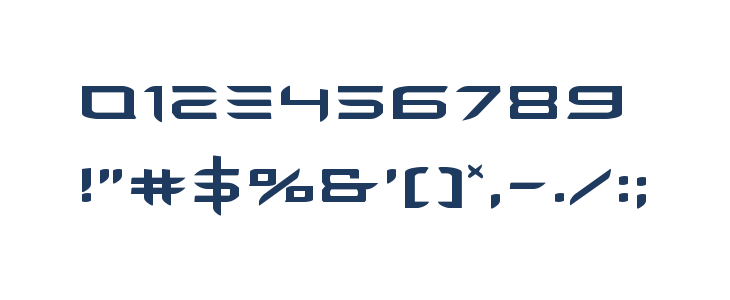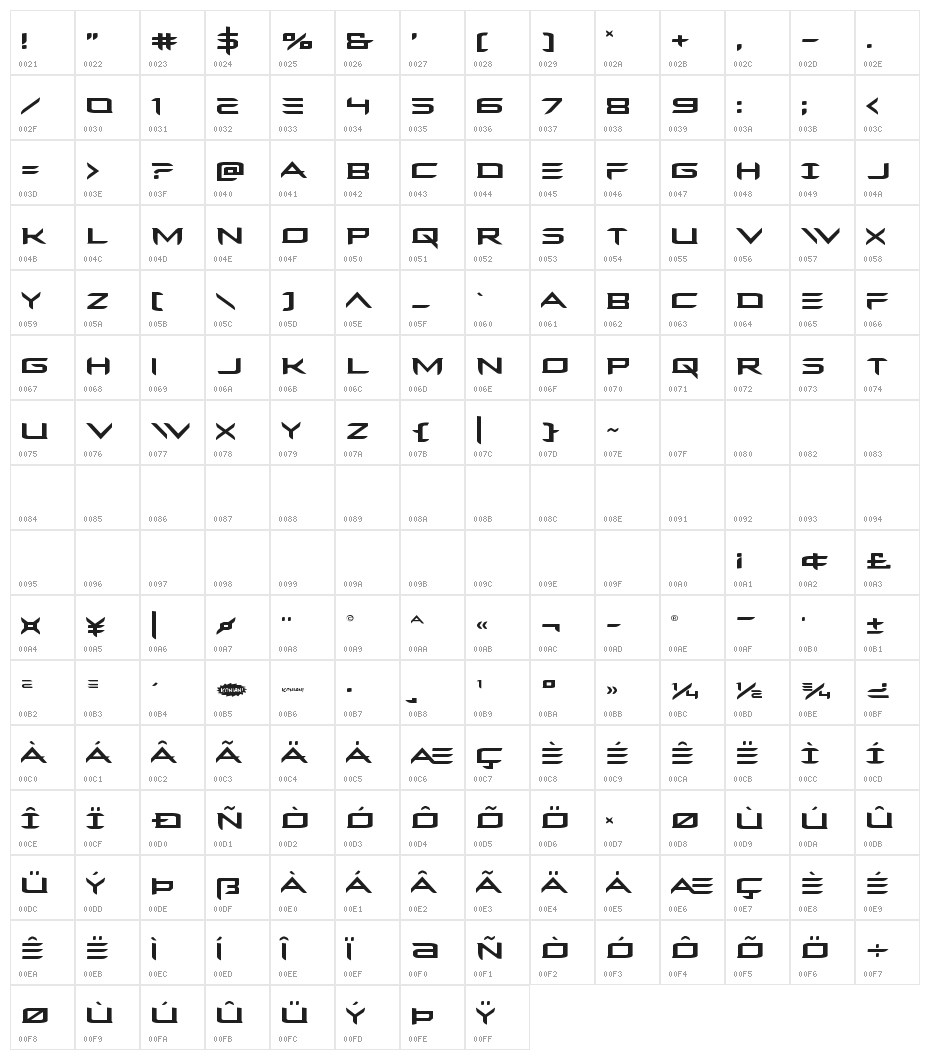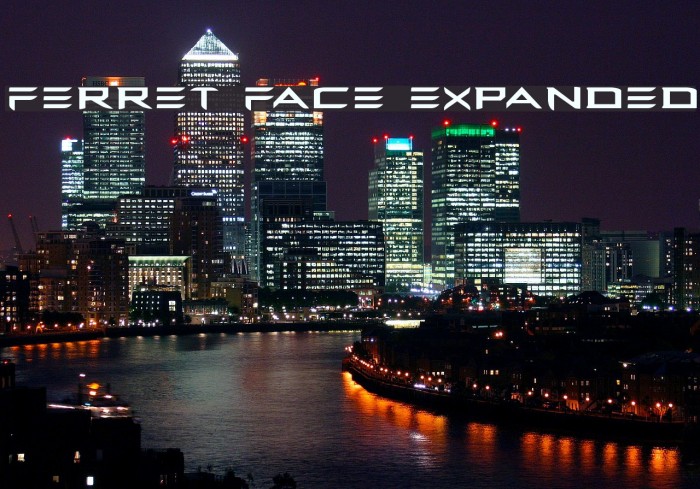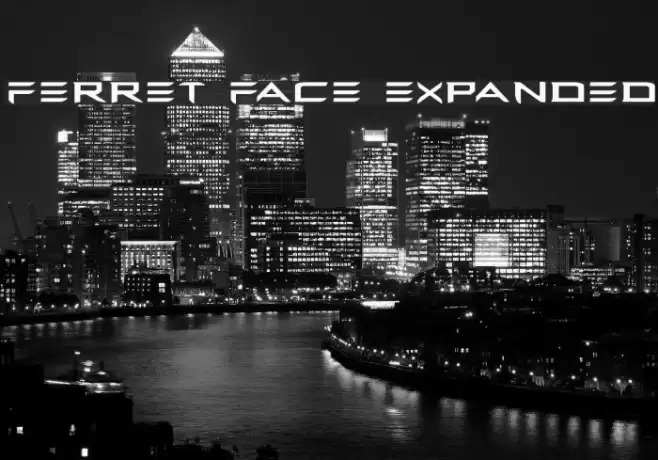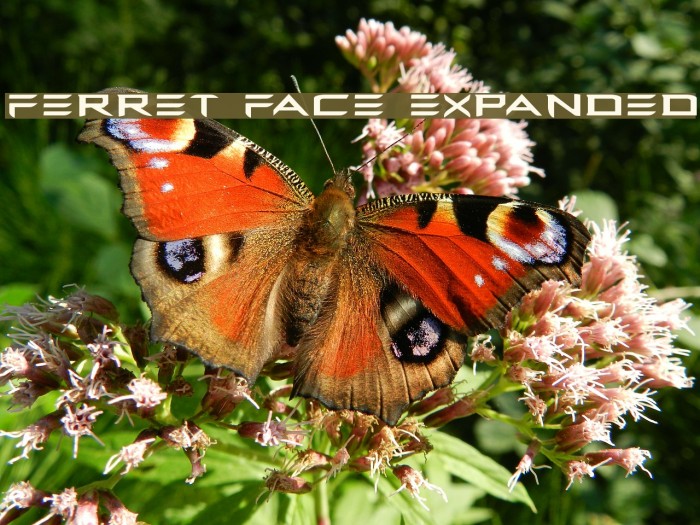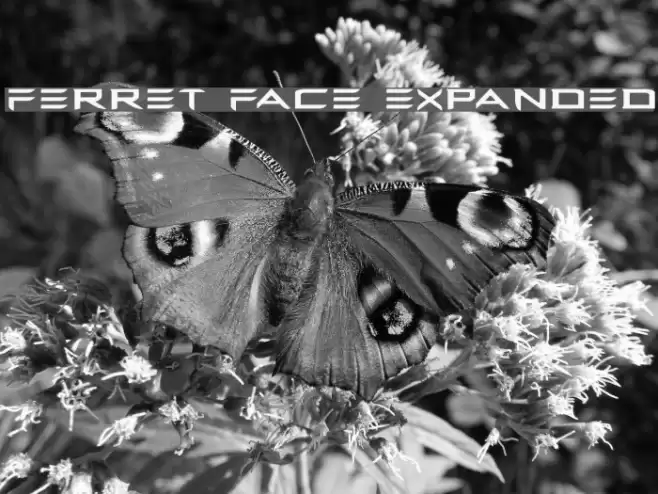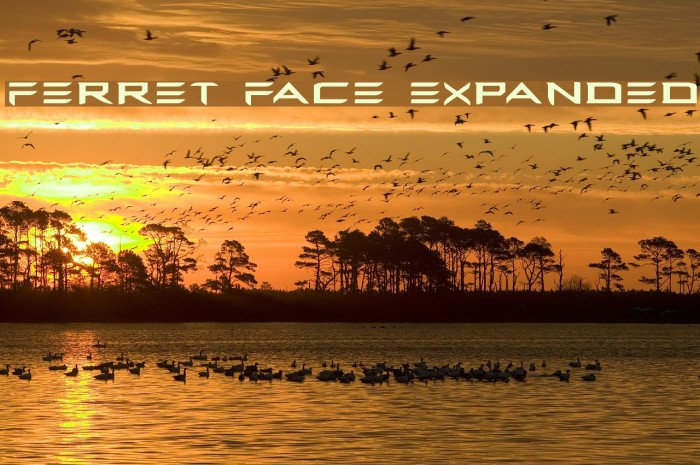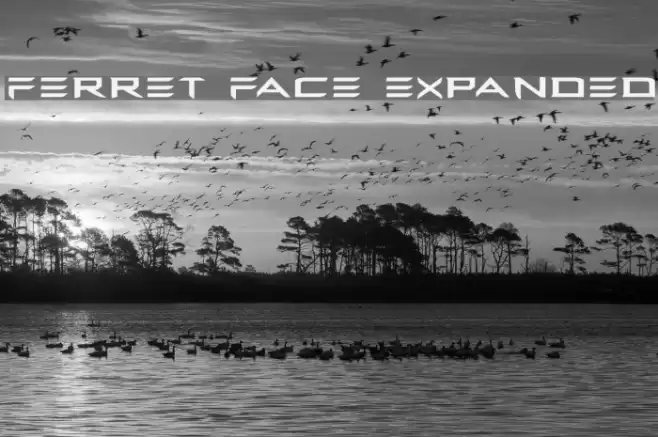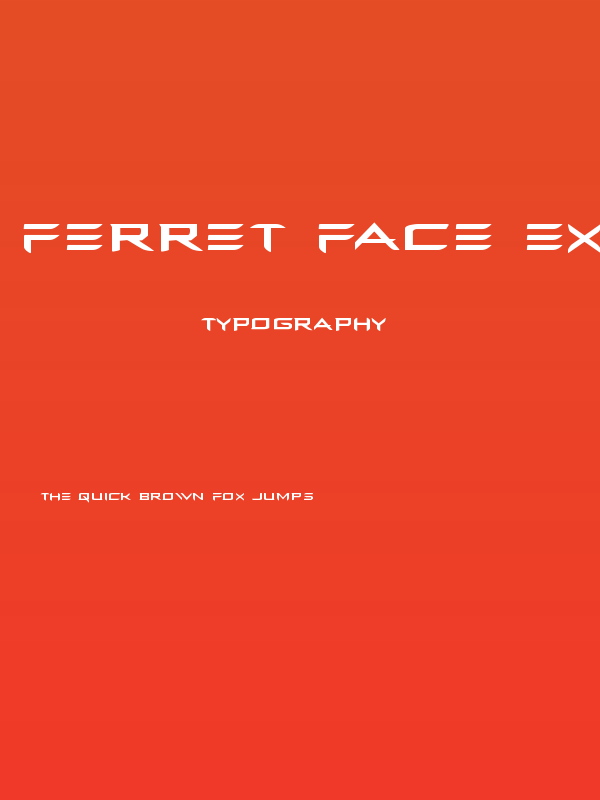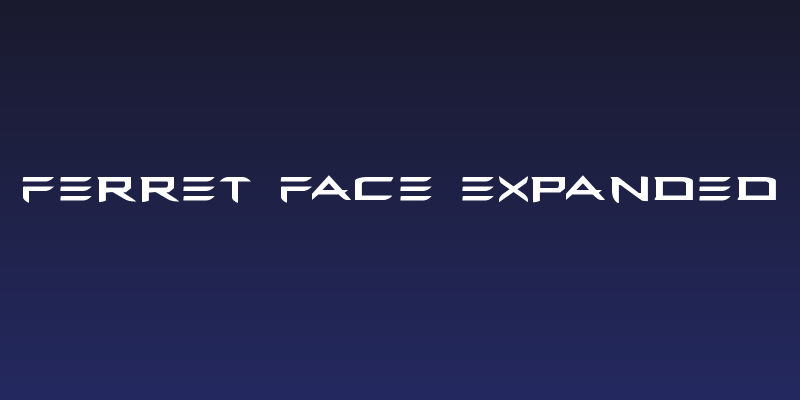
Ferret Face Expanded Font
Ferret Face Expanded Description
This font features a futuristic and angular design, characterized by sharp edges and geometric shapes. The uppercase letters are bold and striking, with a distinct sci-fi aesthetic. The lowercase letters maintain the same angular style, ensuring consistency throughout the typeface. Numbers are equally bold, with a unique design that complements the overall theme. Special characters are crafted with the same attention to detail, making them seamlessly integrate with the rest of the font. The expanded width of the characters gives a sense of space and modernity, making it ideal for projects that require a bold and contemporary look.